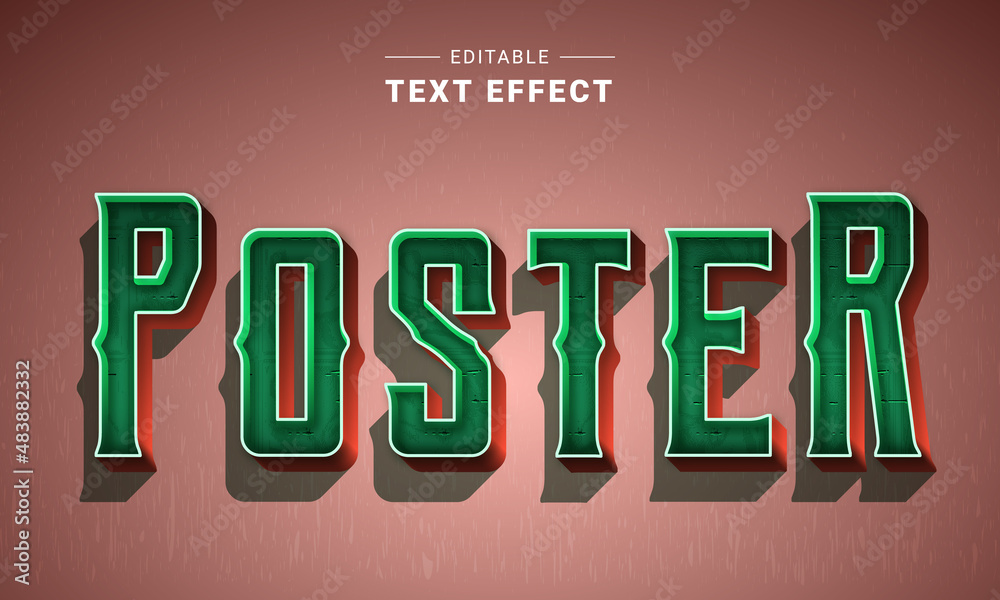
Editable Text Effect Retro Font Style Mockup Generator Stock Vector How do you get 3D effect on text In Microsoft Word, you can put a simple 3D effect on your text by: On the Insert tab, click the WordArt button and select a WordArt style